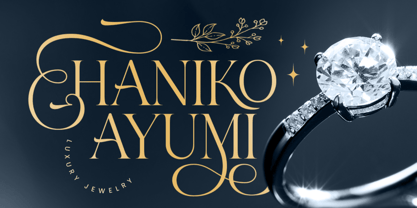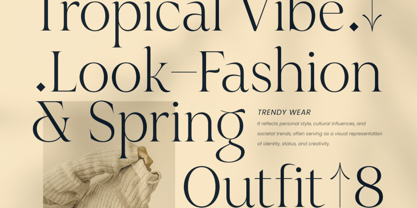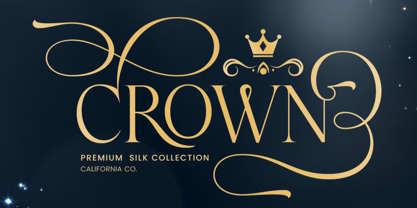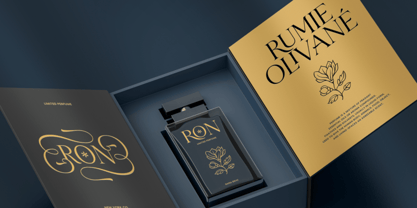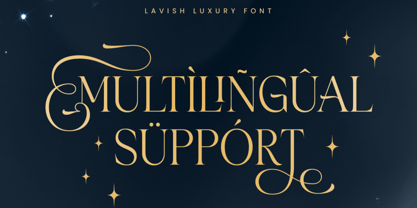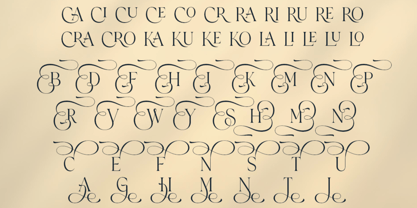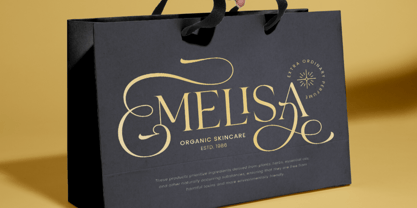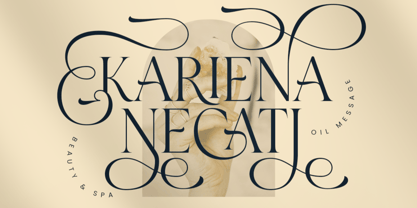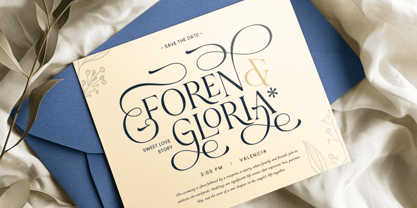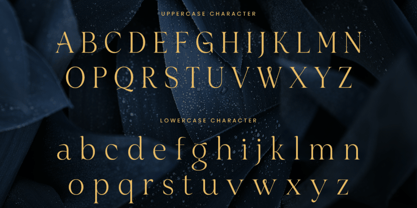
Salran
The Salran Font Family was designed by Olivia Love and published by Only Fonts. Salran contains 1 styles. More about this family
Salran – Lavish Luxury Serif Font Salran is a lavish luxury serif font designed to convey elegance, prestige, and timeless beauty. Inspired by high-end fashion, editorial sophistication, and classic typography, Salran features refined letterforms with graceful curves and carefully balanced proportions. Every detail is meticulously crafted to create a harmonious flow, giving your designs a polished and exclusive appearance that stands out immediately. This font infuses a sense of luxury and confidence into a wide range of creative projects. Salran excels in high-end branding, fashion labels, premium packaging, magazine layouts, wedding invitations, and elegant logo designs. Its sophisticated style performs beautifully in both large display settings and smaller refined text, maintaining clarity while enhancing visual impact. Salran embodies a graceful, modern, and classic aesthetic simultaneously. It seamlessly blends contemporary design with traditional serif elegance, making it a versatile choice for designers aiming to communicate quality and refinement. The included alternates and ligatures provide an extra layer of creativity, allowing you to craft unique typographic compositions with ease. Whether you are building a luxury brand identity or designing an upscale editorial piece, Salran elevates your work with a distinctive and memorable presence. Its artistic character and professional finish make it an essential addition to any designer’s collection. Salran Lavish Luxury Font Features: • Elegant serif characters • Luxury alternates and ligatures • Unique punctuation, numbers, and symbols • Uppercase and lowercase letters • OpenType features • Multilingual support for over 50 languages
Salran